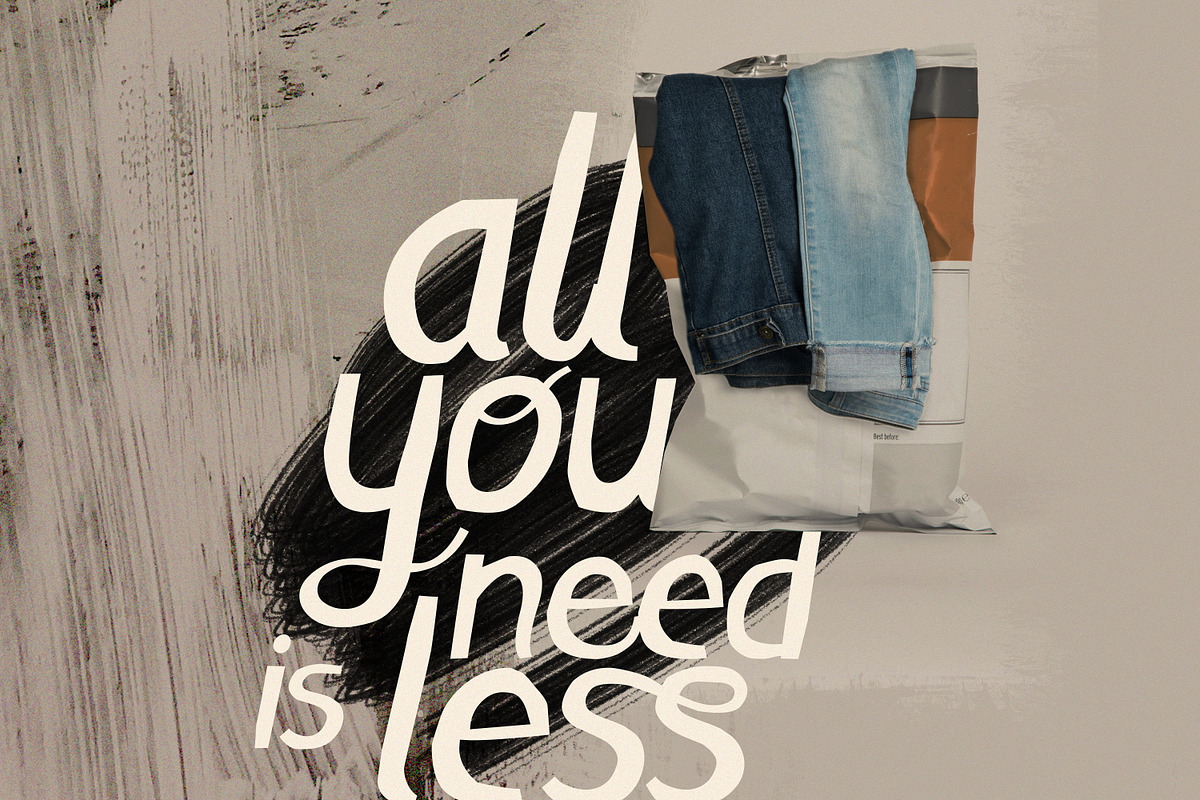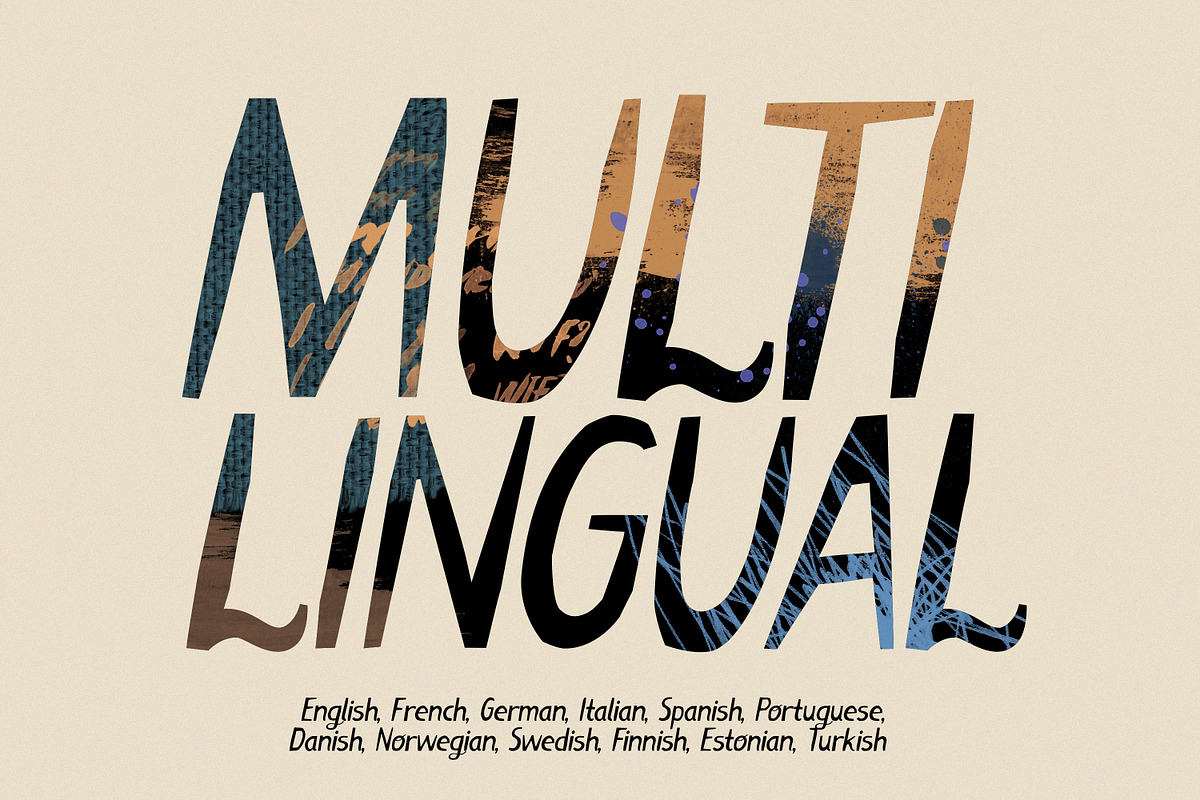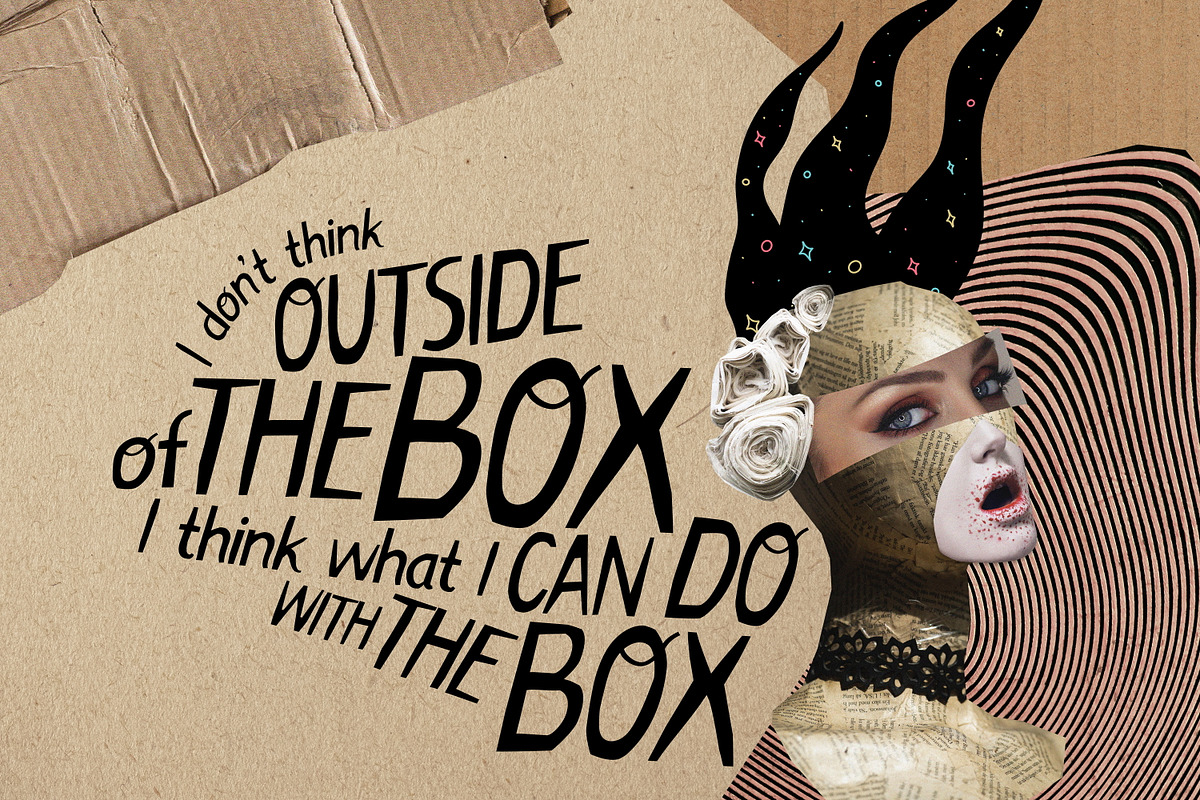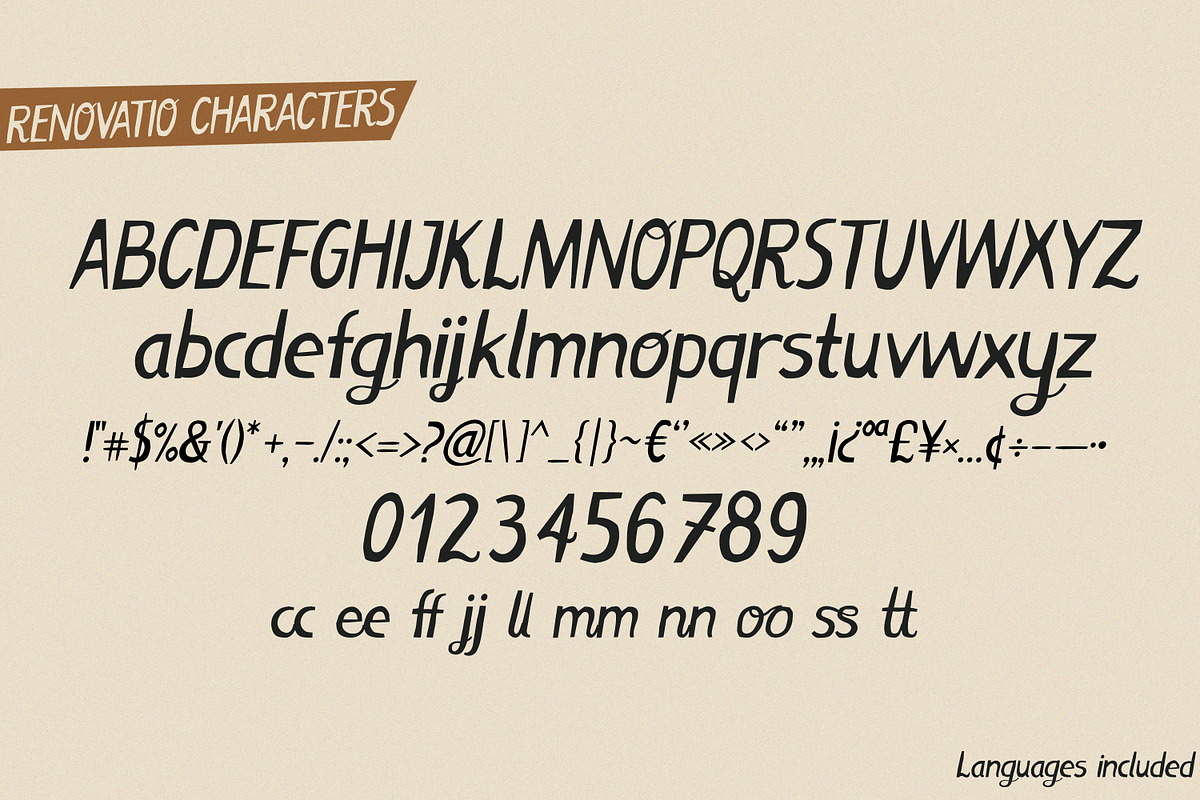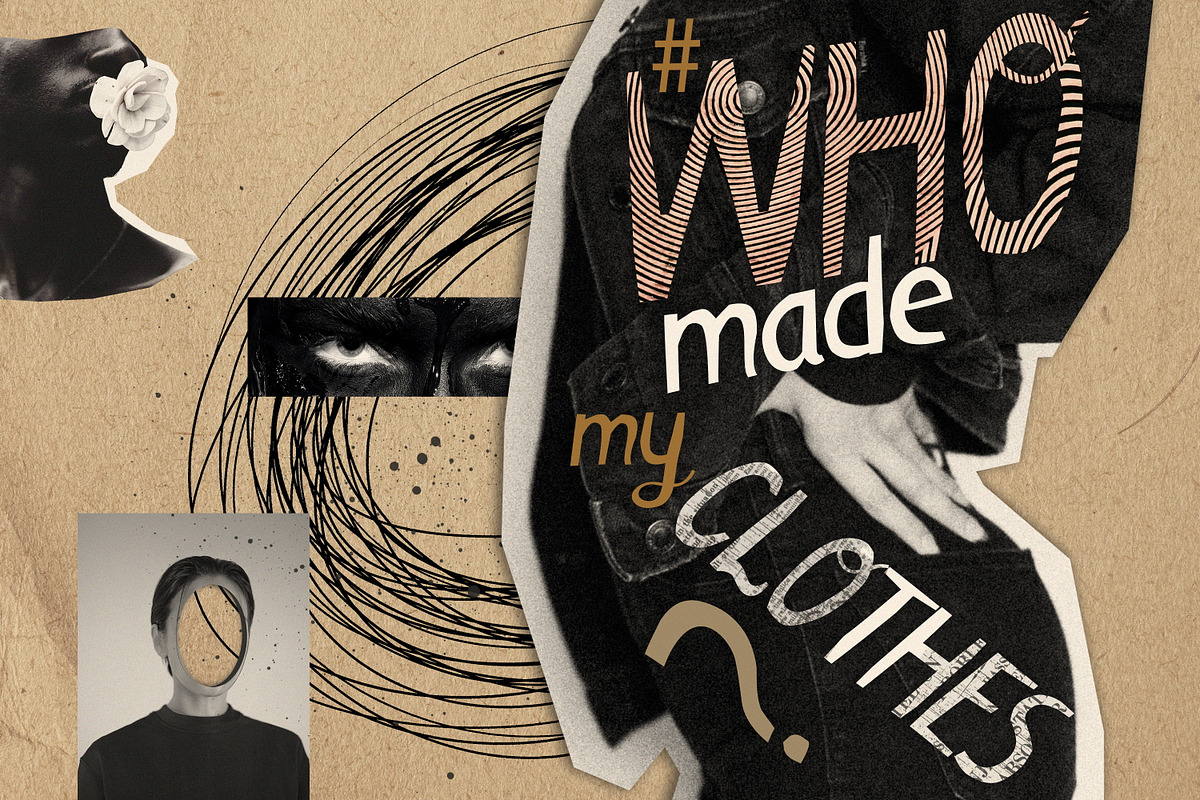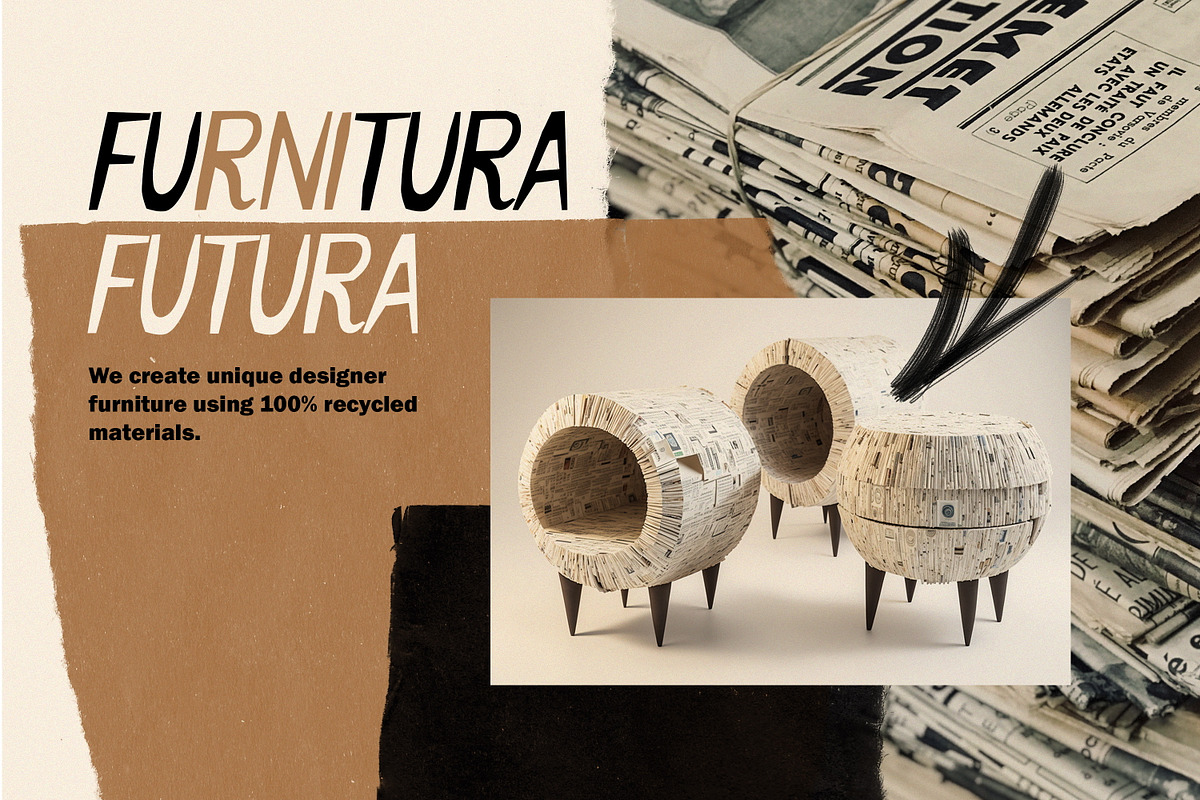
Renovatio - Cutout Handwritten Font
Renovatio is a hand-written and paper-cut font with small imperfections.Font "Renovatio" is inspired by the ideas of ethical fashion, sustainable development, recycling of materials. The font seems to be cut out of paper, thereby conveying zero waste idea of and the creation of the new from the old. The font comes in two file formats: OTF, TTF, WOFF and WOFF2. There are also ligatures of some double lower case letters. "Renovatio" supports popular Latin-based languages.